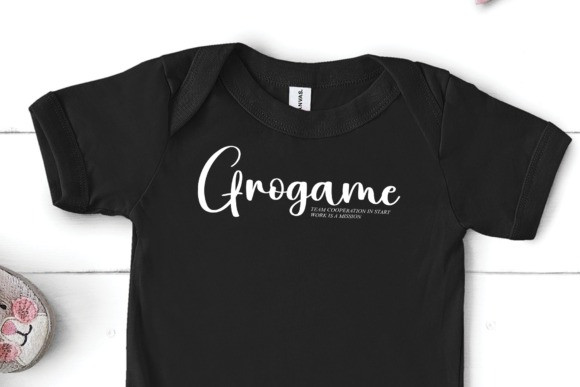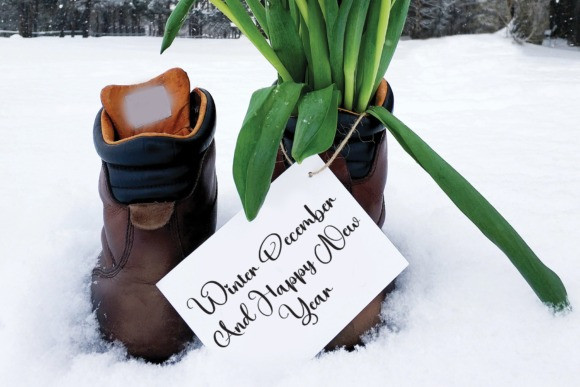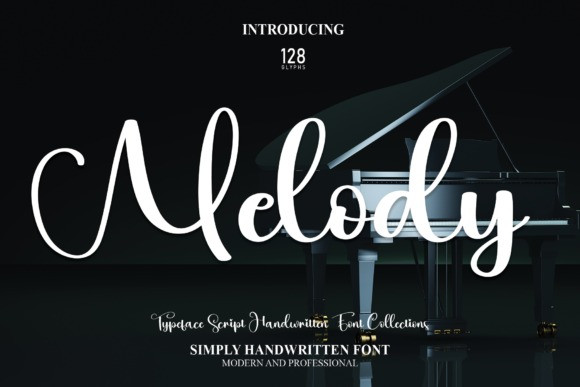
Melody Typeface
Melody Typeface, is a new fresh & modern script with a handmade calligraphy style, decorative characters, and a dancing baseline! So beautiful on invitations like greeting cards, branding materials, business cards, quotes, posters, and more!!